You’re probably sick of the Arial font, even if you don’t know it. As the default Gmail font—known as “sans-serif” in the Gmail interface—it’s the medium through which you’ve received years of spam, bills, entreaties from needy family members, and demands from bosses and colleagues.
Now the reign of Arial may be coming to a close. Earlier this week, The Verge and Android Authority reported that they’d obtained internal Google $GOOGL emails about an impending Gmail redesign. The Gmail product, despite (or perhaps because of) its popularity and ubiquity, hasn’t been redesigned since 2011, eons in internet years. The expected facelift appears to include a number of functional changes, including a “snooze” feature, that will temporarily remove a selected email from your inbox and then return later, and more unified integration with Google Calendar.
But for font nerds, the big news is about the display. The Gmail interface font (menu items, for example) will change from Arial to Product Sans, while the default font for email and messages will change from Arial to Roboto. Both Product Sans and Roboto are fonts created by Google, and, if the leaked redesign comes to fruition, they’ll be a welcome change.
Product Sans is a Futura-like font that Google designed in 2015 for branding purposes; you may recognize it from the current Google logo, which replaced the old, serif-font logo also in 2015. Roboto resembles Arial or Helvetica; Google has been iterating on the font since 2011. It’s now the primary font in the Android operating system and, if the Gmail redesign is any indication, likely to become Google’s default across all its platforms.
Product Sans will be a relatively light design touch for things like headers and menus, but Roboto will impact the majority of words that hundreds of millions of people read every day. So it’s worth thinking about how our digital experiences of Gmail will change now that Arial’s out and Roboto’s in.
Both Arial and Roboto are modern-feeling, sans-serif fonts, and, letter by letter, they are fairly similar. Roboto does have a few small changes at the individual character level. The upper-case “Q” (Arial on the left, Roboto on the right) is probably the biggest change:
Another noticeable change is to the line in the dollar sign:
Other character-level changes include switching out a square dot on the lower-case “i” and “j,” as well as the question mark, with a circular dot:
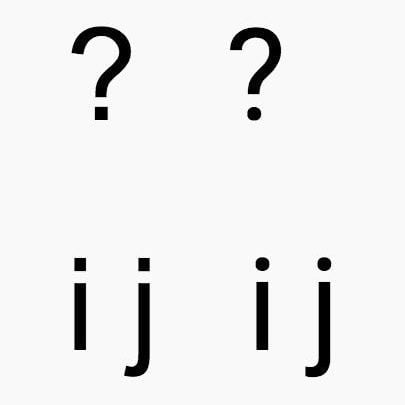
But really the biggest difference is in character spacing. Roboto’s characters are thinner than Arial, leaving more white space between each letter:
Character spacing may seem trivial , but it makes a huge difference in the feel of long blocks of text. I’m an editor who works primarily in Google Docs, where Arial is also the default font, and the first thing I do when I receive a new document is change the font I find Arial cramped and claustrophobic; I have a rotating set of fonts I use instead, including Roboto, a few others with even wider natural tracking, like my current favorite, Nunito. Below, from top to bottom, are Arial, Roboto, and Nunito:
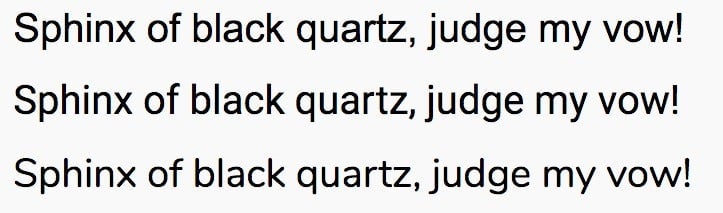
For most people, the difference between Arial and Roboto will show up most acutely on smartphones. Google’s Gmail decision is indicative of a broader shift by technology platform companies away from the familiar fonts of the desktop age—Arial and Helvetica prime among them—and toward new fonts designed specifically for mobile.
Google was actually the first to give mobile fonts a go with the Droid family of fonts, released in the late 2000s for its early smartphones. But those fonts didn’t look quite right when phone screen definition began to improve rapidly. Roboto was Google’s next effort; the first iteration of Roboto was released in 2011, and over the next few years, the company tweaked it until it landed, in 2015, on the version widely in use across its Android mobile operating systems.
Meanwhile, Apple $AAPL released its own mobile-friendly sans-serif font, San Francisco, in 2014. By now, Helvetica Neue and Lucida Grande have been more or less entirely replaced by San Francisco as the default on Apple’s macOS and iOS. Apple, just like Google, went towards a taller, skinnier font with more breathing room (Helvetica Neue on the top, San Francisco on the bottom):
Not everyone likes these mobile-first fonts. They tend to be a bit curvier—both Google and Apple have called their fonts “friendlier”—than their predecessors, which some designers say makes them harder to read. Design critics have specifically derided Roboto as an Arial rip-off, and initial public reaction to San Francisco was decidedly negative (though designers seemed to be at least okay with it). I for one welcome the invasion of airier, lighter-weight type.
Whatever your opinion, you will feel these Valley-designed operating system fonts on some level. Unlike your choice to use Garamond on your resume, or the new coffee shop’s decision to have their sign done up in Bodoni, Google’s selection of Arial has been washing over you every day, multiple times a day, for years. Now it’s time to bathe in Roboto.